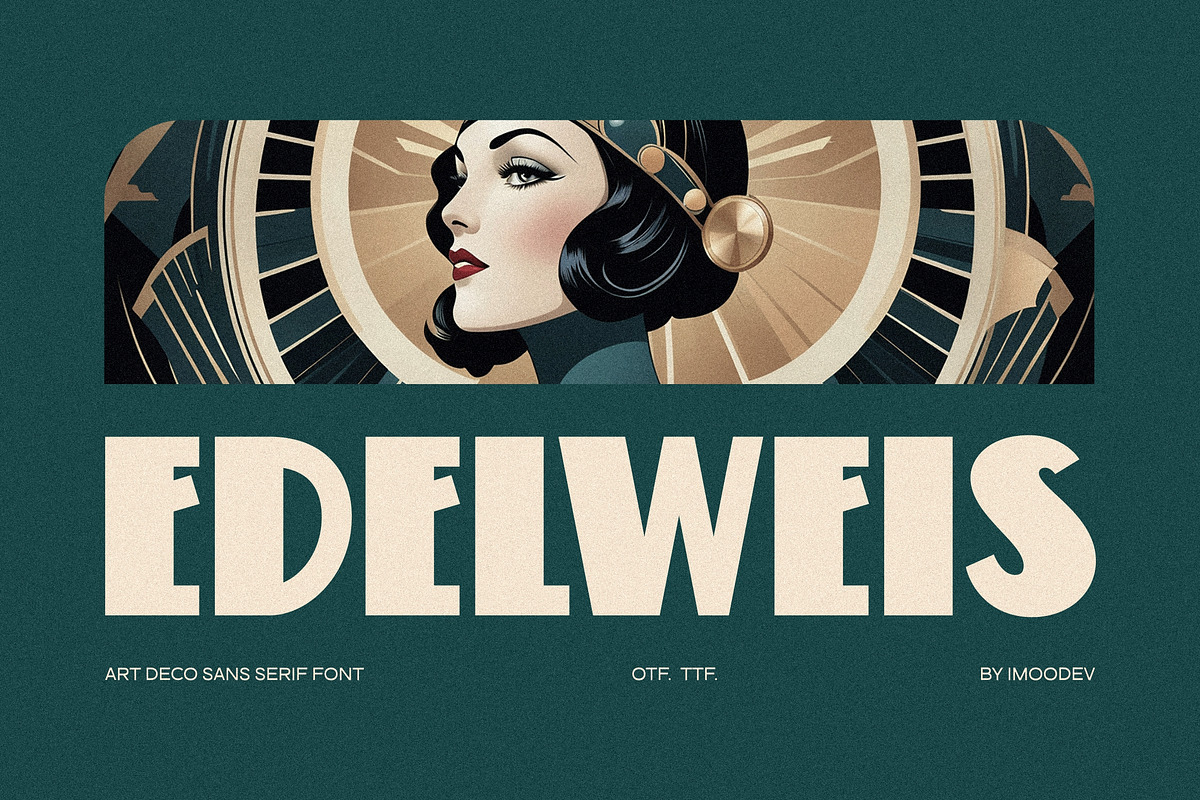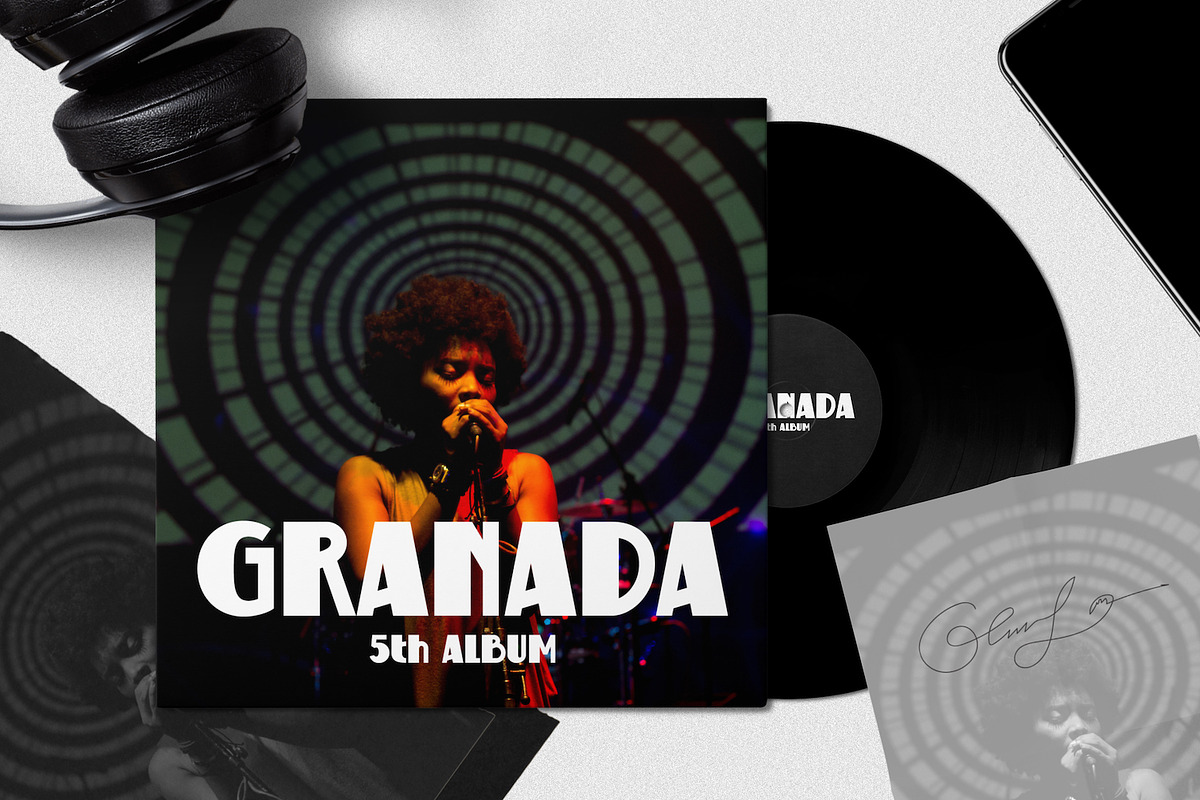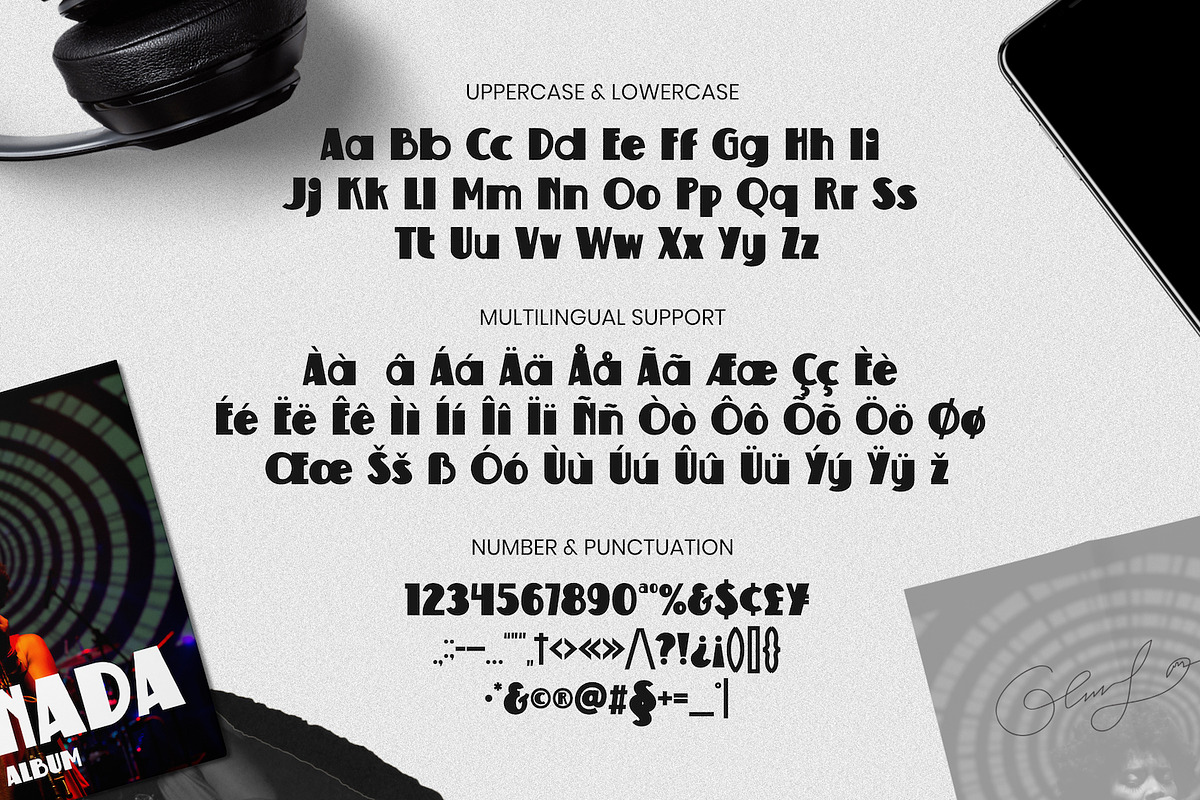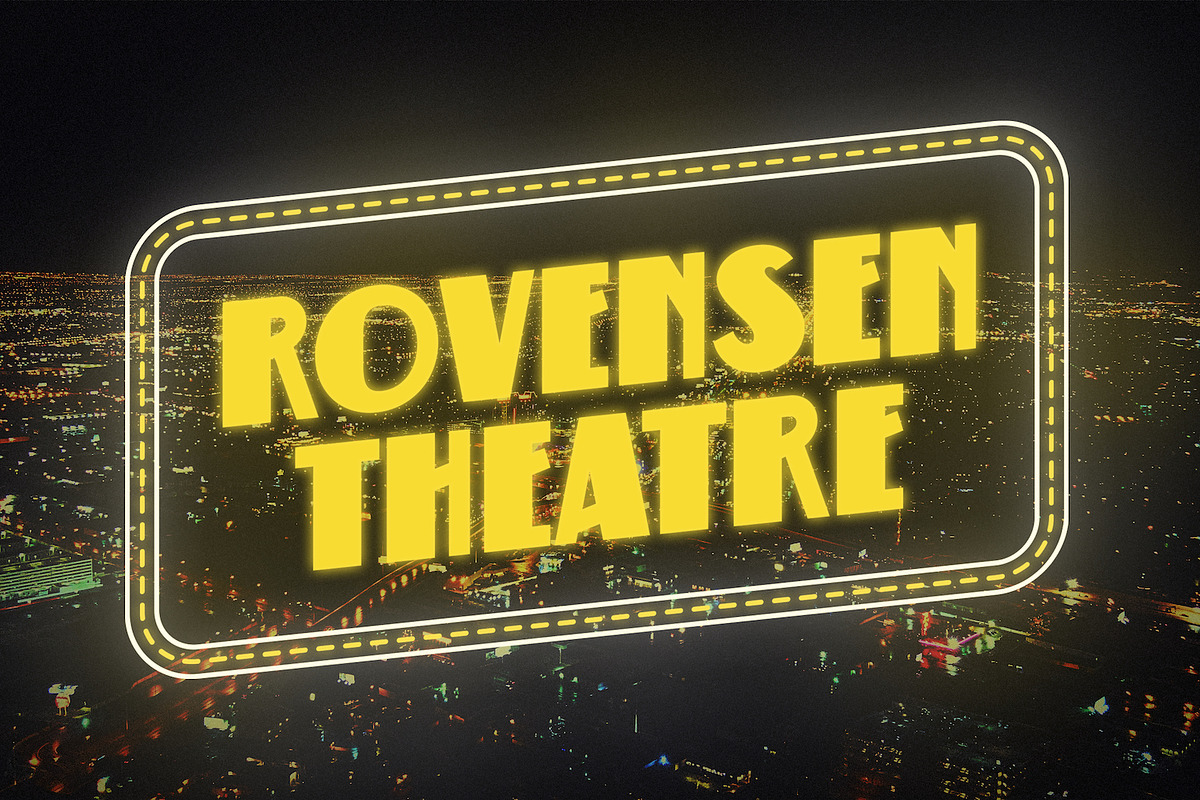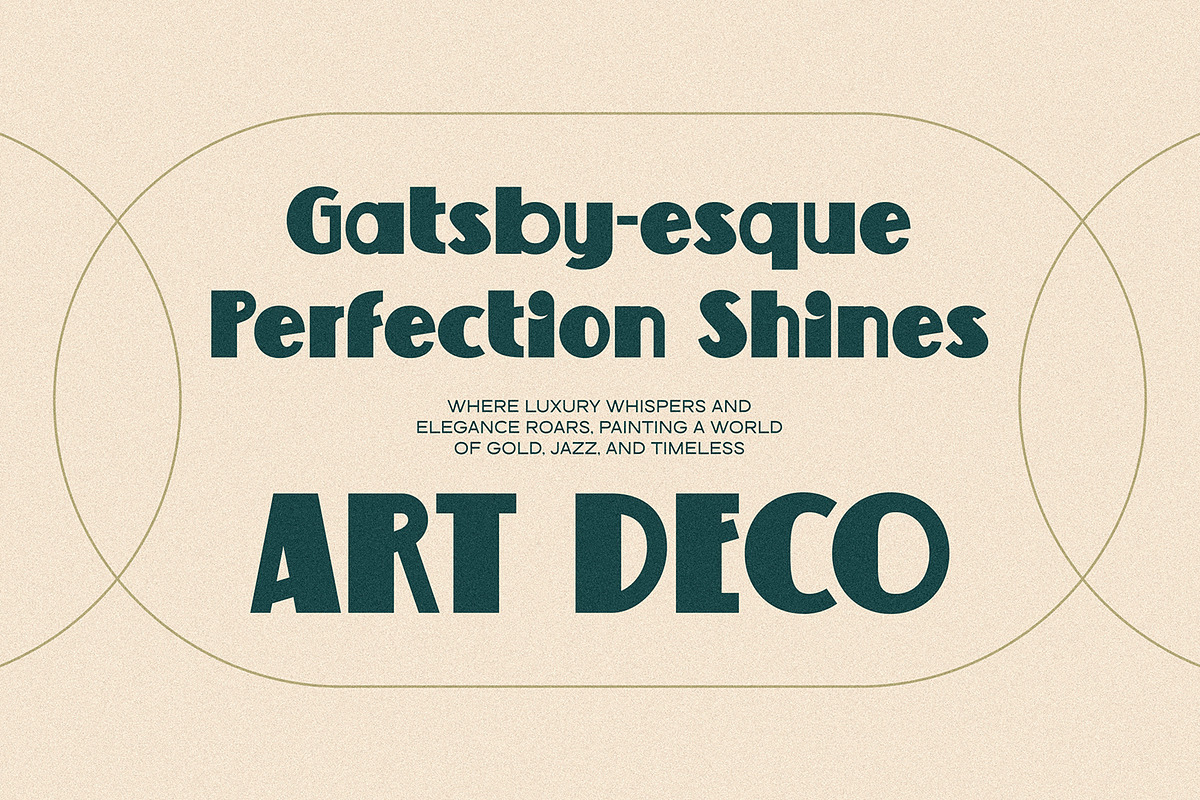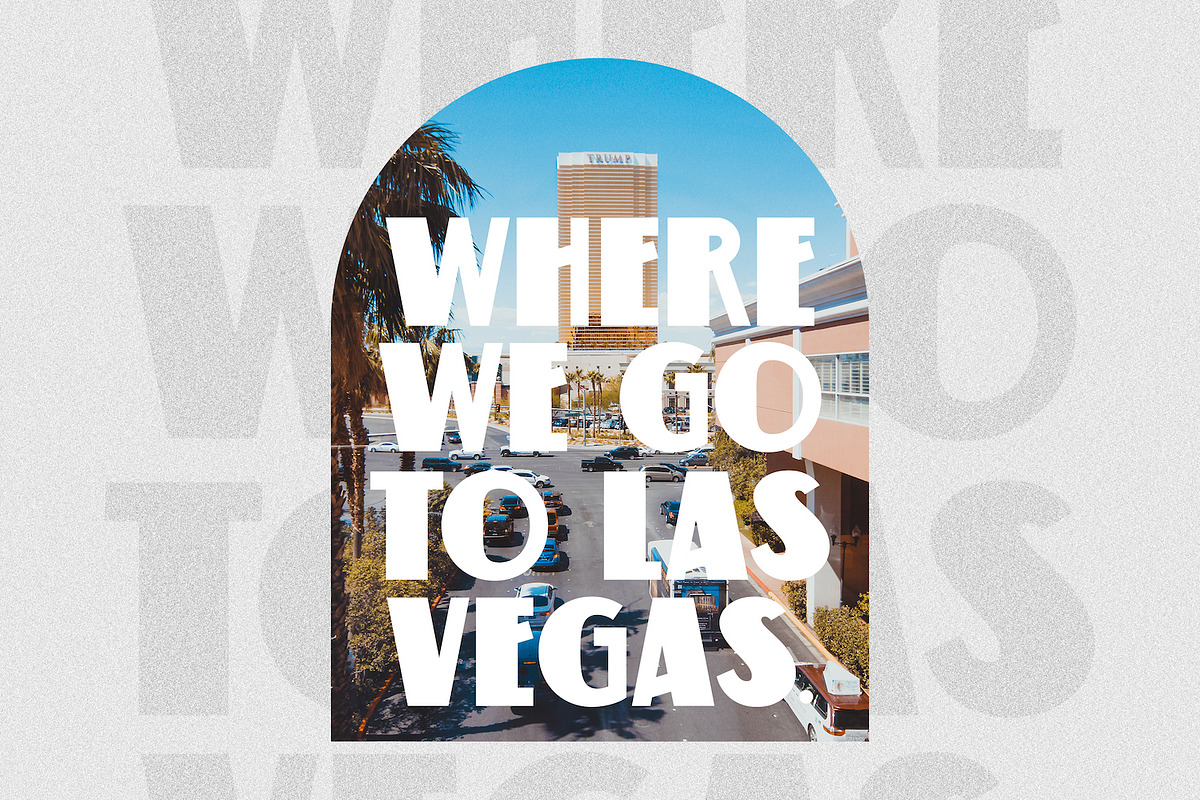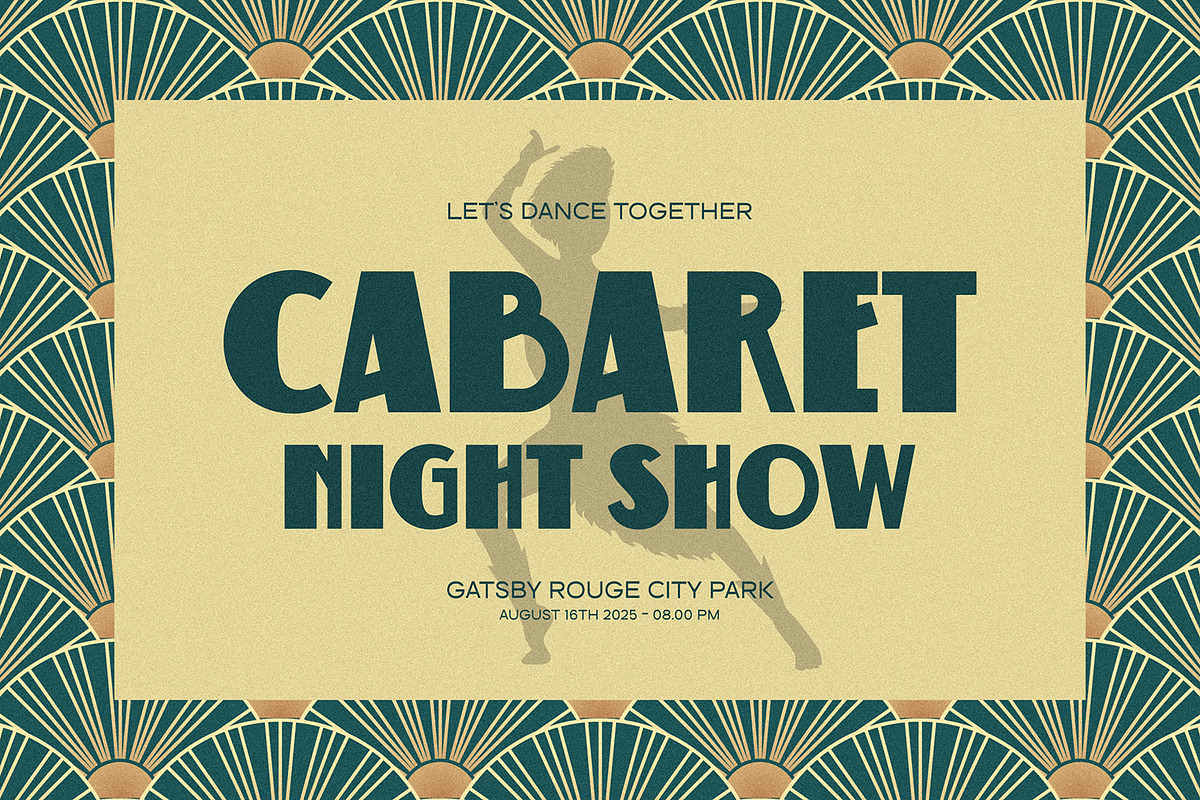
Edelweis - Sans Serif Typeface
Step into an era of unparalleled glamour and geometric precision with Edelweis, a bold art deco inspired sans serif font that captures the exuberant spirit of the Roaring Twenties. This typeface is defined by its strong, confident letterforms and a unique rhythmic quality that makes it truly stand out.
The letters of Edelweis are crafted with a distinctive personality. It features a fascinating interplay of character widths.
The terminals are clean and sharp, emphasizing its modern meets vintage appeal. From the perfectly circular 'O' to the stylized 'R', every character is designed to convey a sense of luxury, history, and timeless style.
Ideal for high end branding, cinematic titles, event invitations, and striking editorial layouts, Edelweis brings a touch of Gatsby esque perfection to any project.